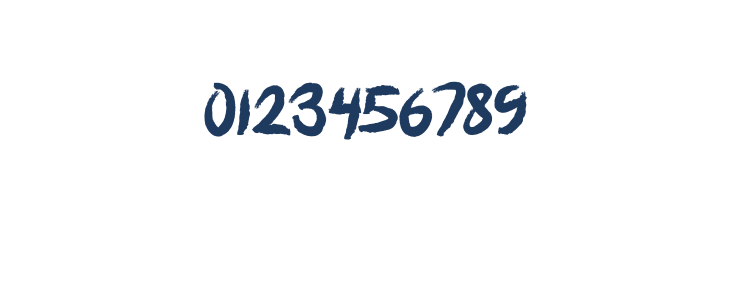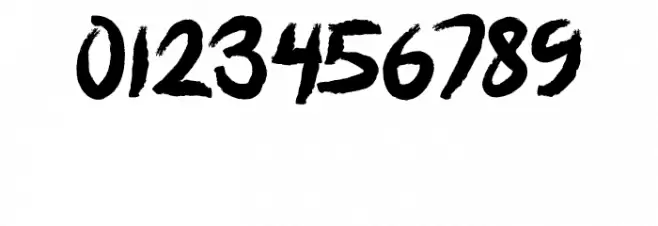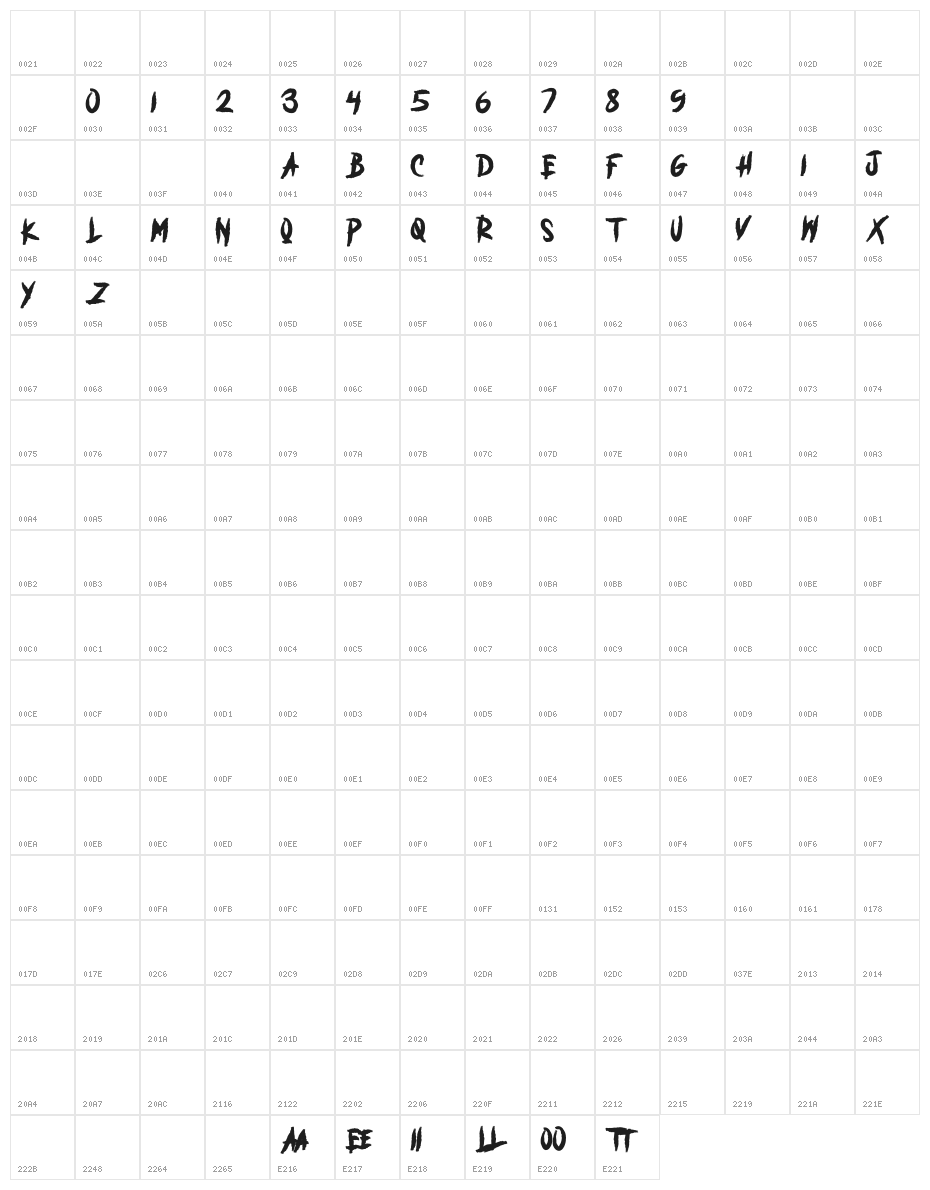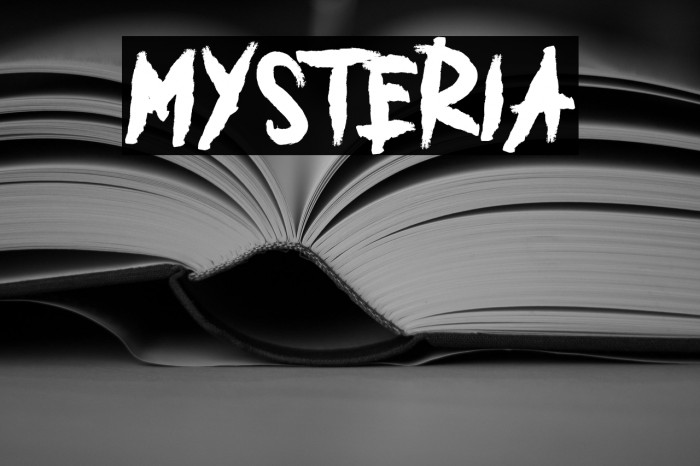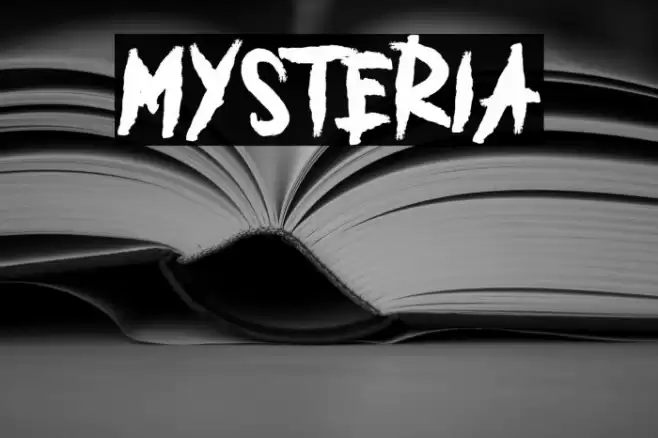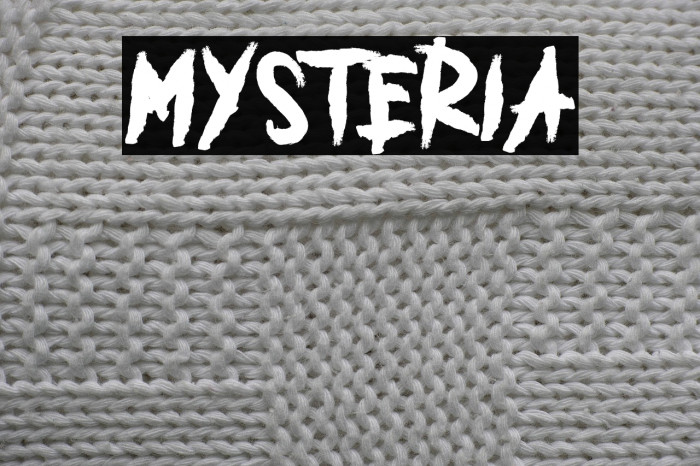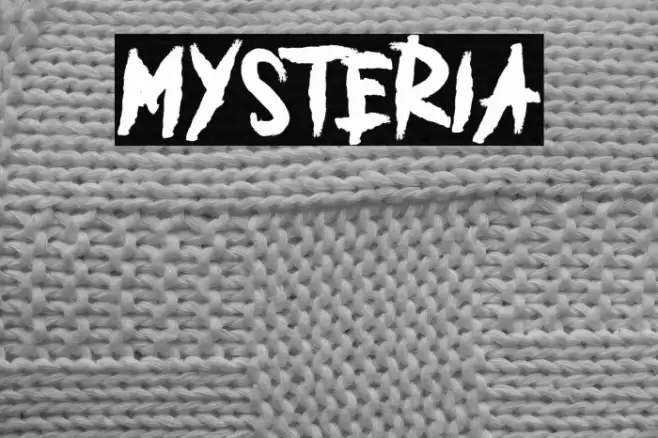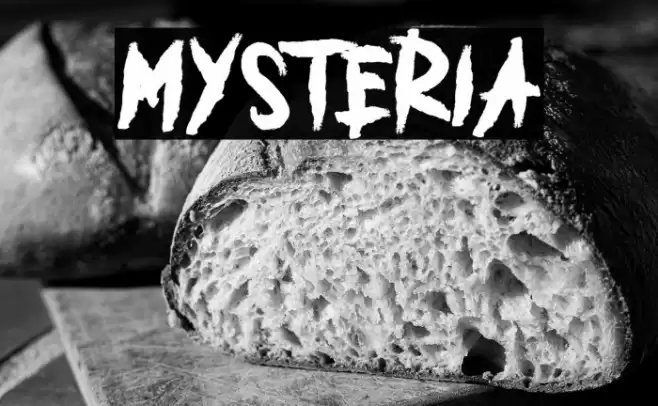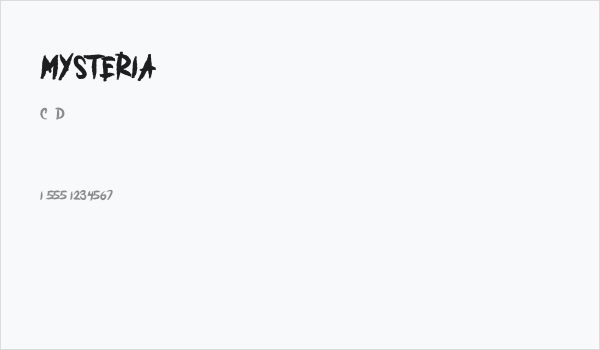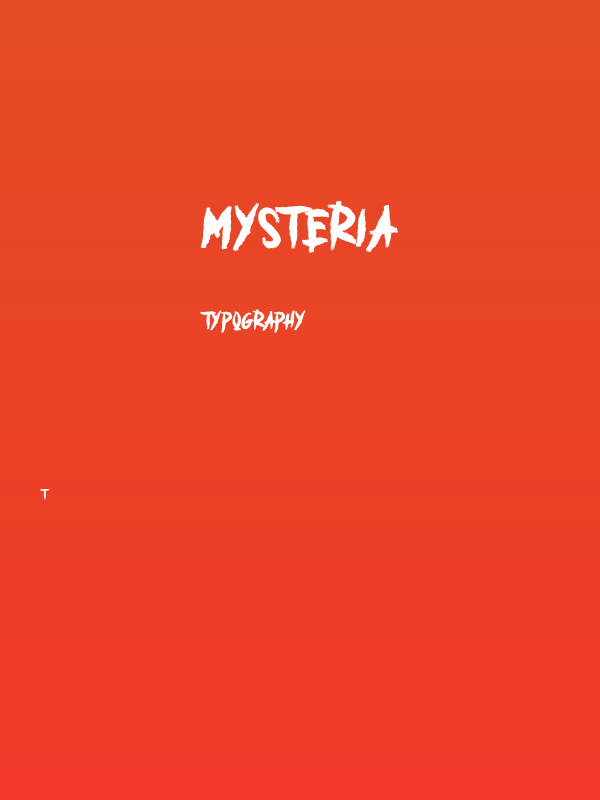
MYSTERIA Font
MYSTERIA Description
This font exudes a bold and dynamic presence, characterized by its brush-like strokes and energetic flair. The uppercase letters are crafted with a sense of movement, each character appearing as if painted with a swift, confident hand. The numbers follow the same style, maintaining consistency across the set. The overall impression is one of spontaneity and artistic expression, making it ideal for projects that require a touch of creativity and boldness. The font's unique style is both eye-catching and memorable, suitable for a variety of design applications.
| Proposed Projects | Ideal for posters, album covers, artistic branding, and creative advertising. |